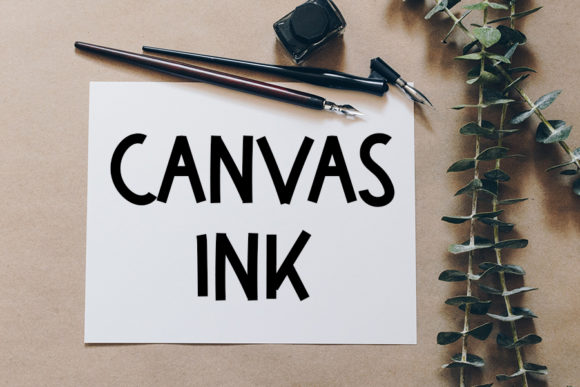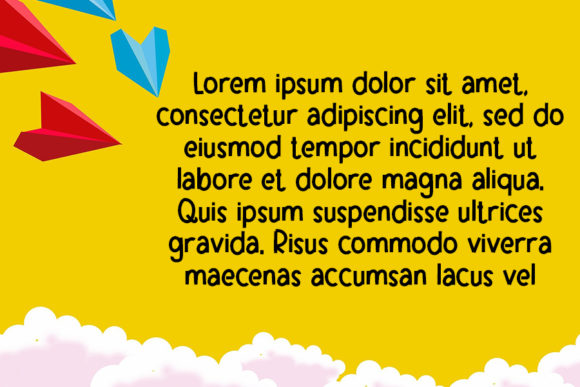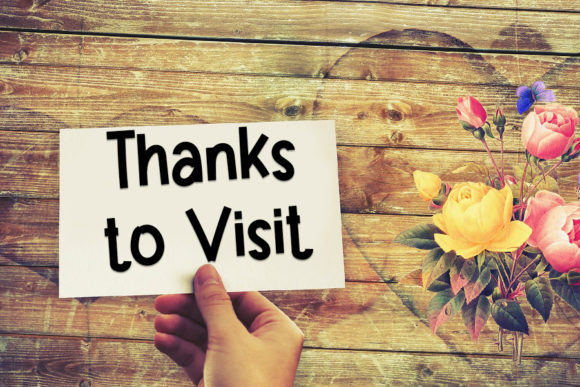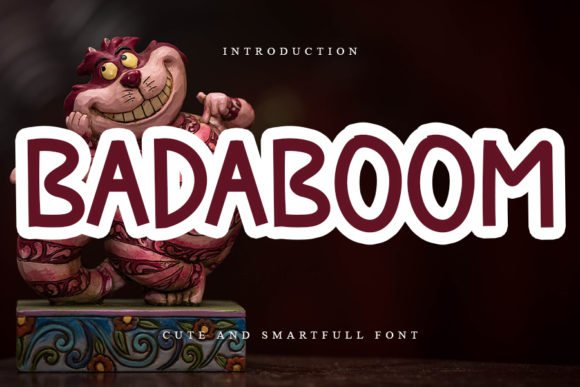
Introducing Badaboom Font: Elevate Your Designs with a Simple yet Powerful Display Font
In the world of design, fonts play a crucial role in conveying messages, expressing creativity, and capturing the audience’s attention. If you’re a designer, craftsperson, or simply someone who loves to dabble in creative projects, you’re likely always on the lookout for the perfect font to bring your vision to life. Today, we’re excited to introduce you to Badaboom Font, a game-changing display font that’s about to become your new favorite tool.
What is Badaboom Font?
Badaboom is a simple, all-round, and clean display font designed to add a touch of elegance and fun to your designs. Its flexibility and neat style make it an excellent choice for a wide range of projects, from branding and advertising to crafting and DIY endeavors. With Badaboom, you can say goodbye to boring, generic fonts and hello to a world of creative possibilities.
Key Features of Badaboom Font
- Simplicity: Badaboom’s clean and straightforward design ensures that your message is always clear and easy to read.
- Flexibility: Whether you’re working on a digital project or a print design, Badaboom adapts seamlessly to any medium.
- Neat Style: The font’s sleek lines and balanced proportions give it a sophisticated look that’s hard to resist.
- Endless Variations: With Badaboom, you can experiment with different sizes, colors, and styles to create unique and eye-catching designs.
Who Can Benefit from Badaboom Font?
Badaboom Font is perfect for:
- Graphic Designers: Add a fresh touch to your branding, advertising, and marketing materials.
- Crafters and DIY Enthusiasts: Elevate your handmade projects, such as signs, cards, and decorations.
- Digital Artists: Use Badaboom to add text to your artwork, illustrations, and digital creations.
- Small Business Owners: Create professional-looking signage, menus, and promotional materials.
How to Use Badaboom Font in Your Designs
Using Badaboom Font is easy and fun. Here are some tips to get you started:
- Experiment with Sizes: Play with different font sizes to create visual interest and hierarchy.
- Try Different Colors: Use Badaboom with bold, bright colors to make your designs pop.
- Mix and Match: Combine Badaboom with other fonts to create unique and eye-catching typography.
- Have Fun: Don’t be afraid to try new things and push the limits of what you can do with Badaboom.